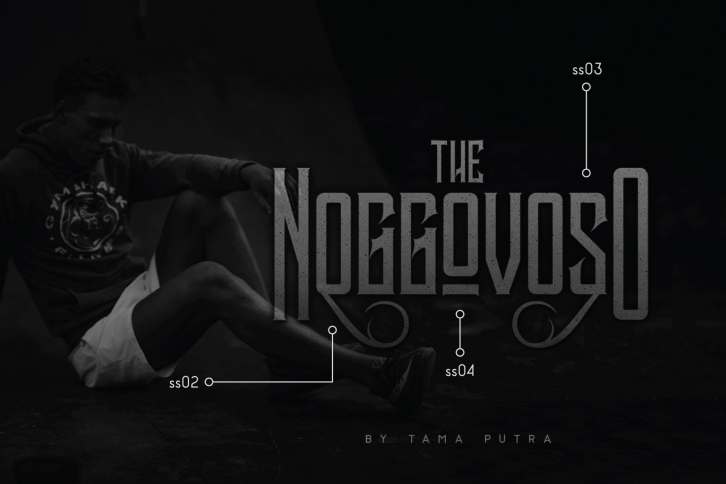
Noggovoso Decorative Display is a great font that was designed by Tama Putra. Imagine the amount of combinations you can create using this font! The archive is 5.72 MB and it was released on January 30, 2019. Noggovoso Decorative Display looks beautiful on wedding invitations, greeting cards, logos, posters, labels, t-shirt designs, logos, business cards and is perfect for use in ink or watercolor works, fashion, magazines, packaging and food menus, children's books and more!